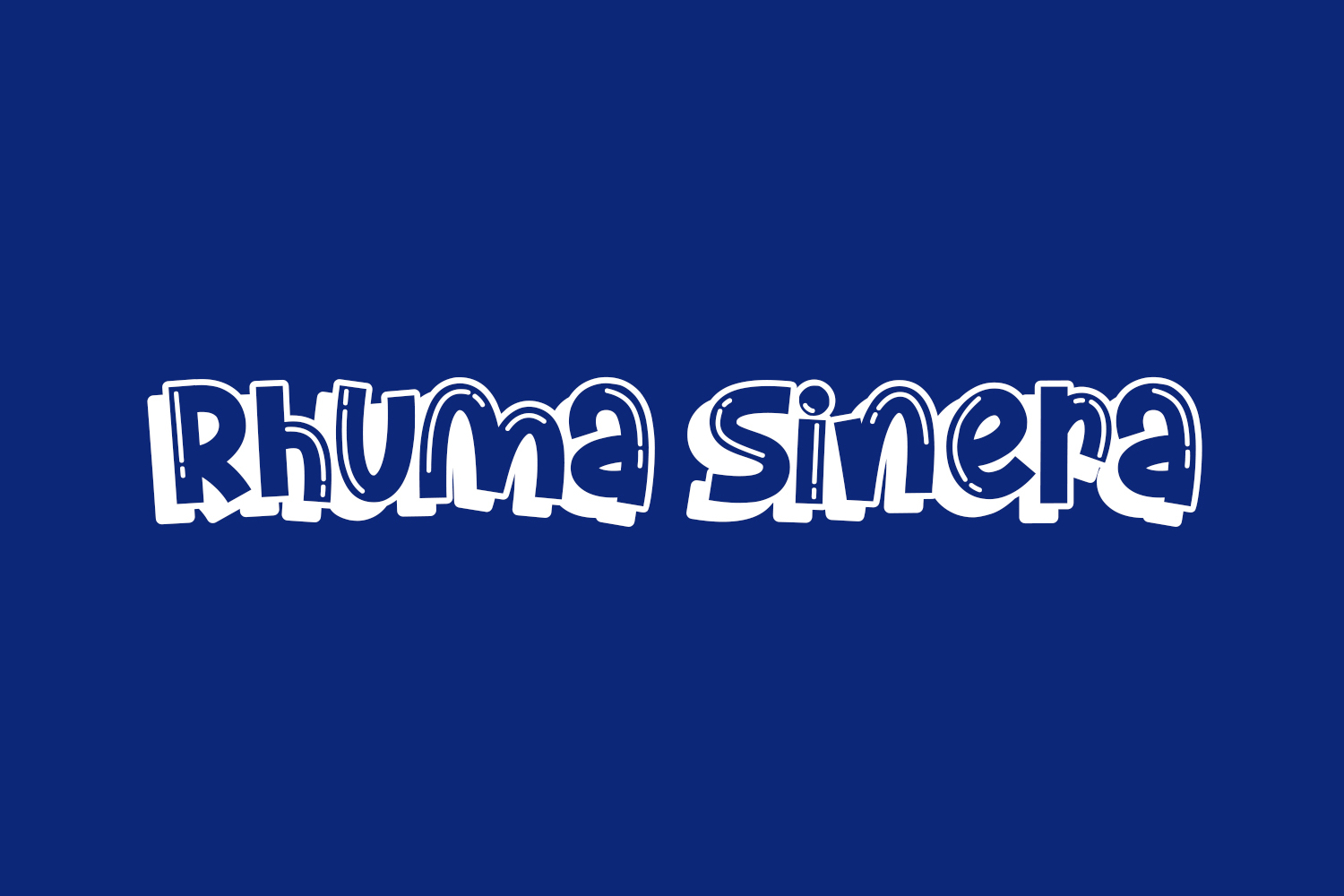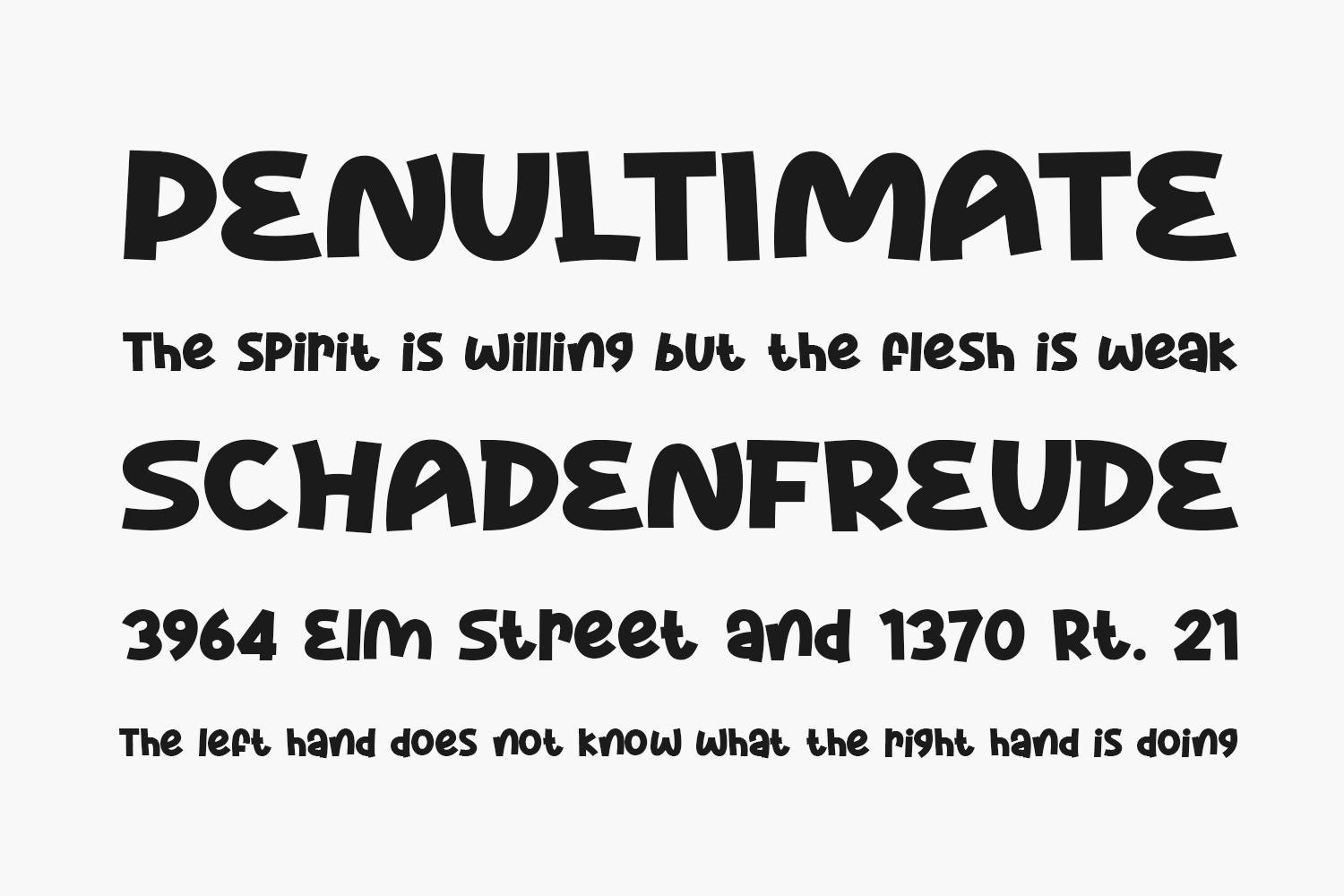
Rhuma Sinera Free Font Family is a playful and inviting display typeface. Whether you’re working on projects related to cartoons, children’s games, uplifting quotes, eye-catching titles, memorable brand names, captivating book covers, vibrant posters, or any creative endeavor in need of a dash of happiness, this font is the perfect selection. Embrace the cool and friendly vibes of Rhuma Sinera for a truly joyful and engaging design experience. Rhuma Sinera Free Font Family is free for personal use only. Please purchase the full version for commercial use.